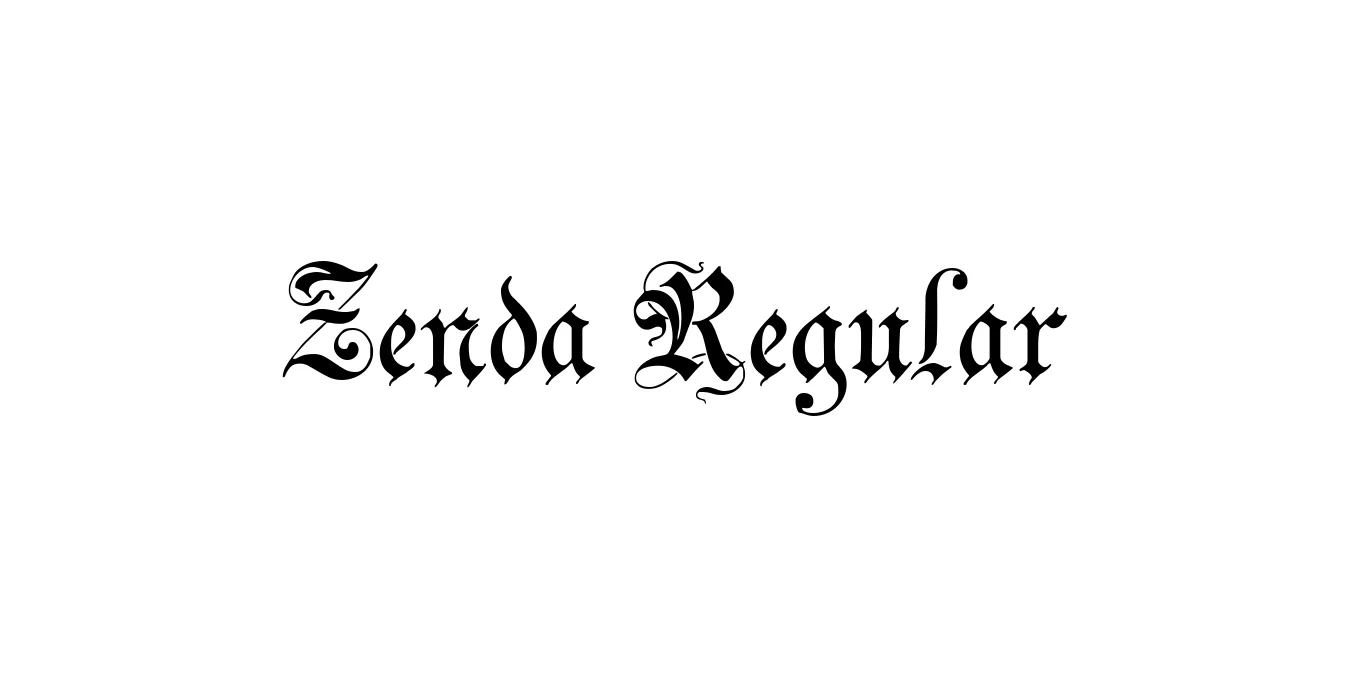
Zenda Regular
Designed by Bright Ideas
| Font Name | Zenda |
| Category | Blackletter |
| Designer | Bright Ideas |
Zenda Regular is a stylized blackletter typeface that evokes the rich calligraphic traditions of the medieval era. It is characterized by its fluid yet structured strokes, which provide a softer alternative to the often harsh and rigid lines found in traditional German Fraktur or Old English styles. The font strikes a unique balance between historical authenticity and contemporary decorative flair, making it an excellent choice for designers looking to inject a sense of antiquity and mystery into their visual work.
Throughout its history, Zenda has been favored for projects that require a touch of the gothic or the fantastical. Its high contrast and decorative flourishes are best suited for large-scale display use, where the intricacy of its character shapes can be fully appreciated. Whether used for film titles, heavy metal aesthetics, or classical literature covers, Zenda Regular remains a versatile tool for creating an atmosphere of heritage and old-world charm.
Zenda Regular Best Uses
Ideal for book covers, chapter headings, and maps in the fantasy and historical fiction genres.
Excellent for RPG interface design, logo marks, and in-game lore documentation.
Adds a prestigious and ancient feel to wedding invitations or themed event posters.
Used for logos that want to convey a sense of craftsmanship, heritage, or gothic subculture.